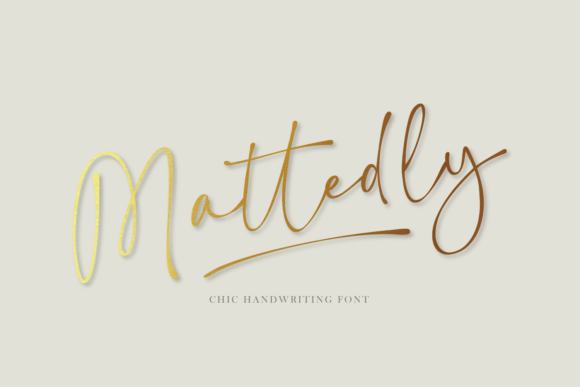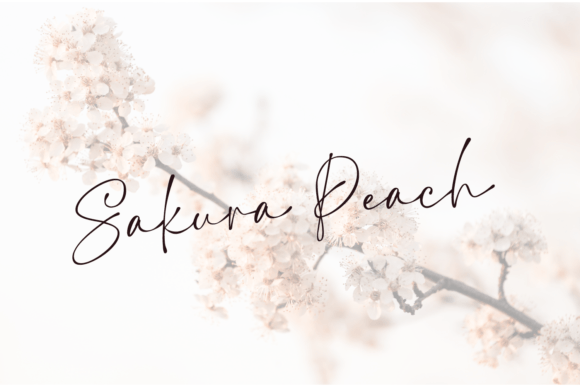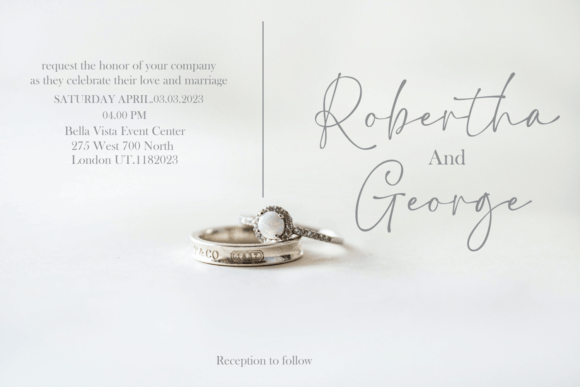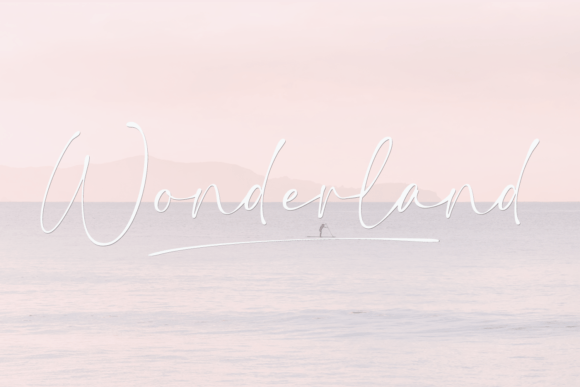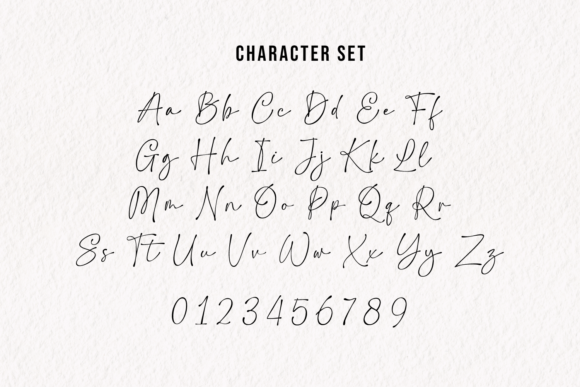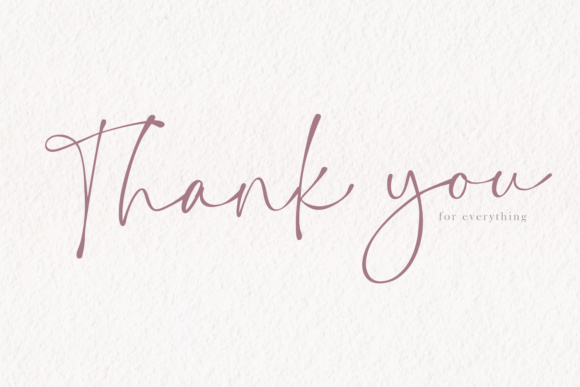
Mattedly
About Mattedly
Mattedly is a chic handwritten font ideal for projects that need an organic, luxurious, unique, and modern style. This typeface is perfect for an elegant & luxury logo, book or movie title design, fashion brand, magazine, weddings, invitations, clothes, Instagram posts, lettering, quotes, and so much more.